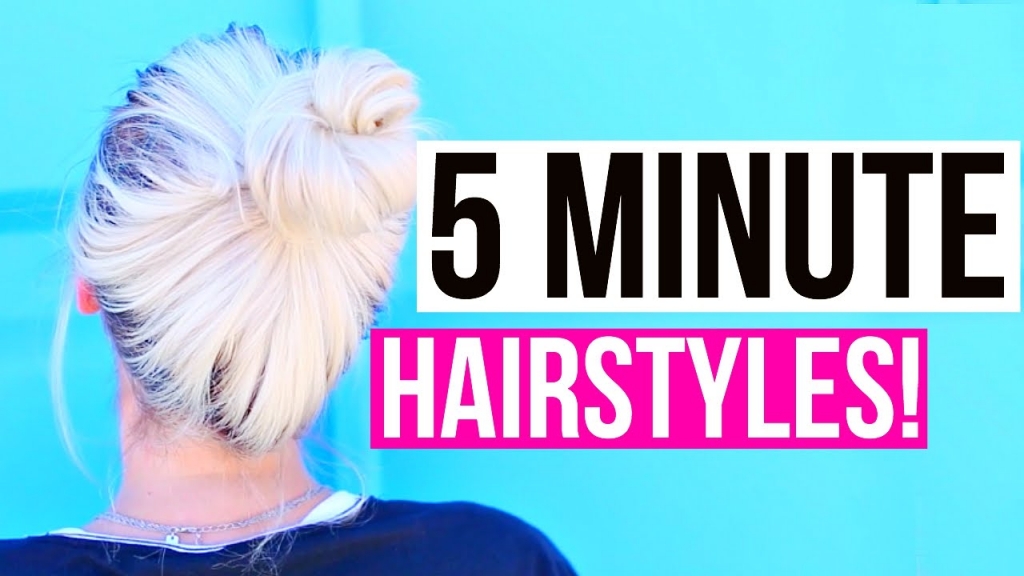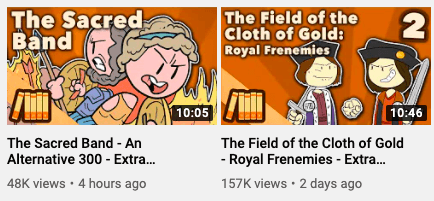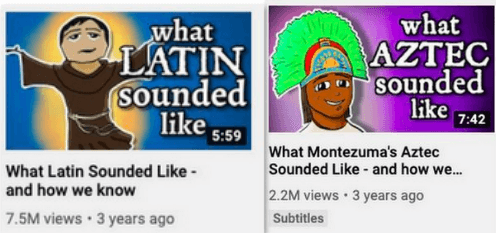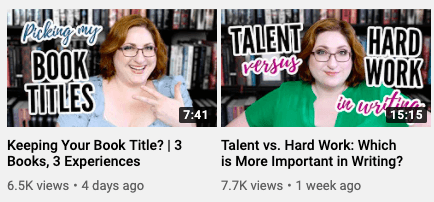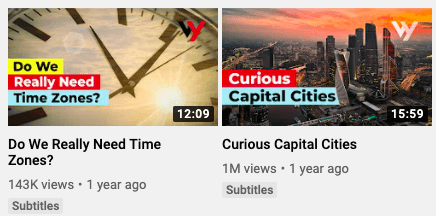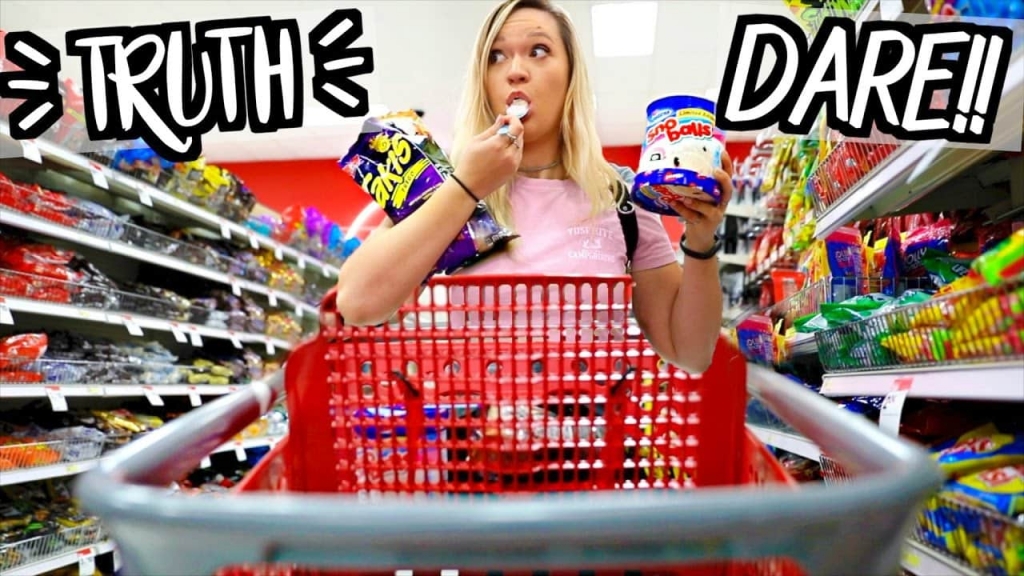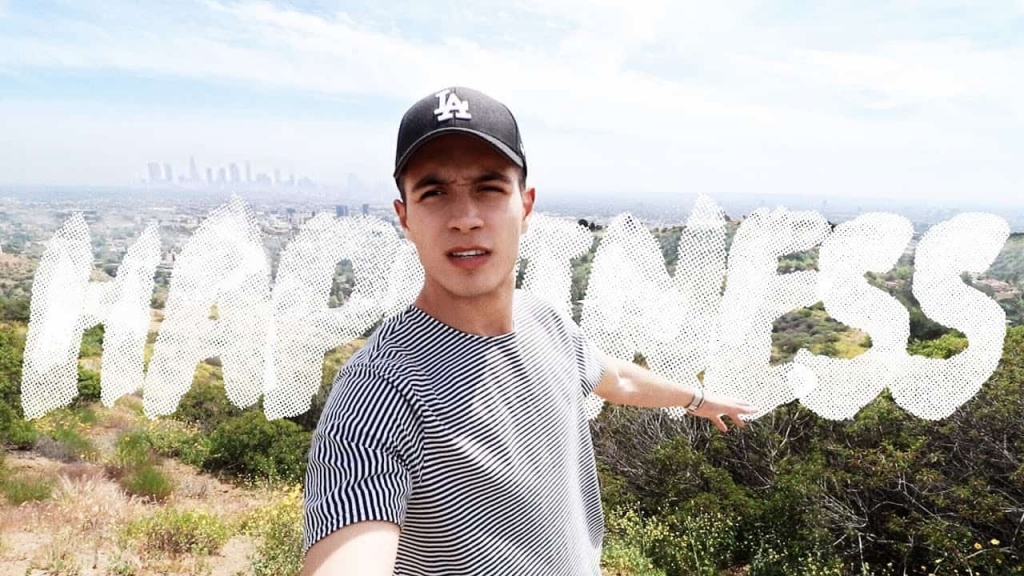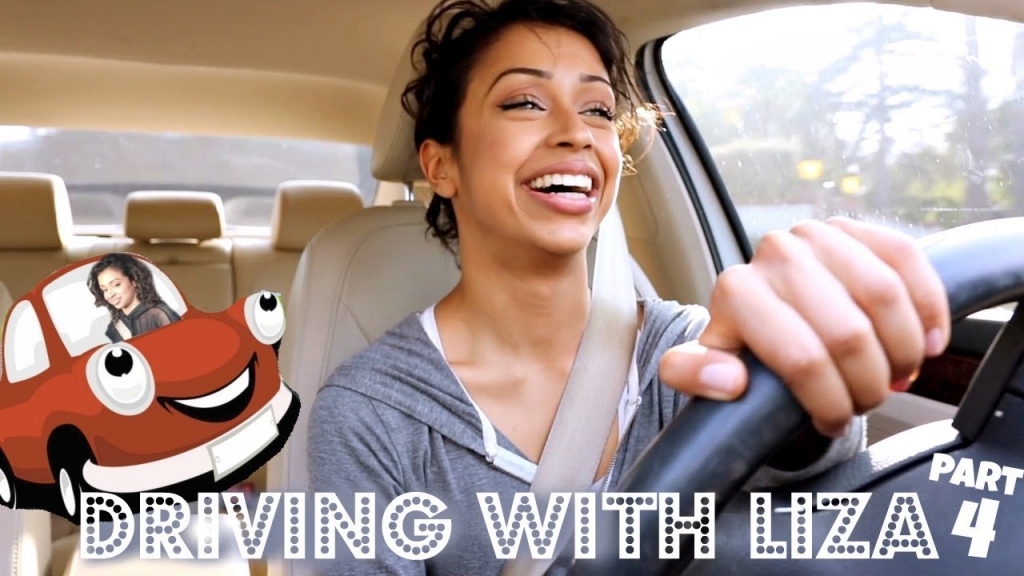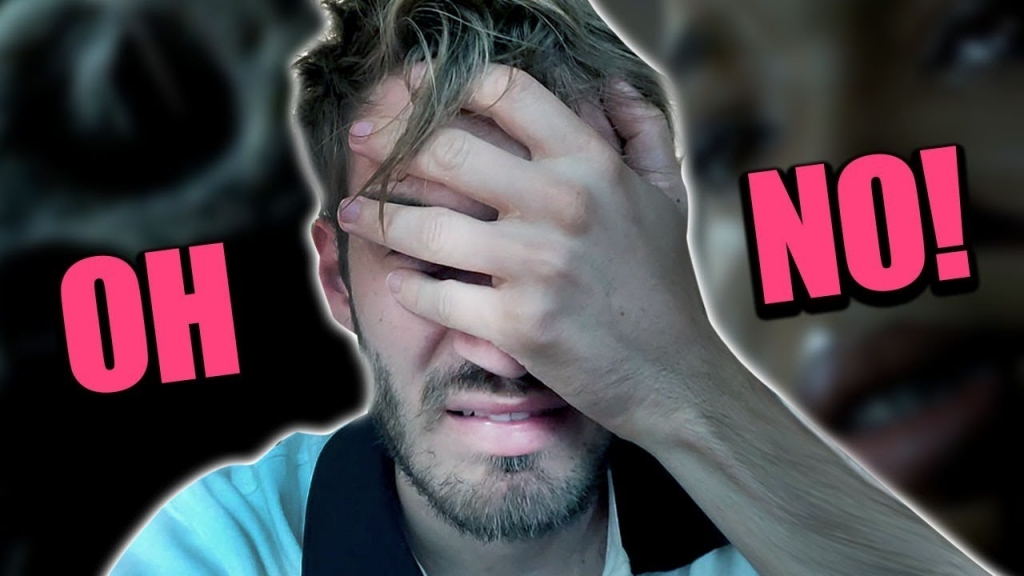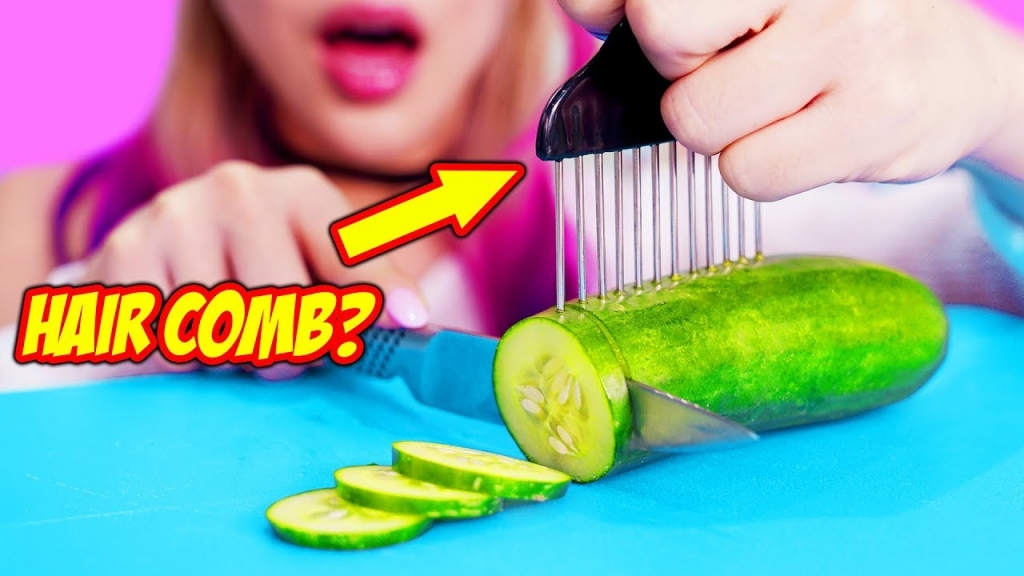
If you’ve been on YouTube for a while now, you would probably agree that creating YouTube content is never simple.
Being a content creator means that you are investing time, skills, and money into your video content, and you expect that people watch your work and grow your channel.
From deciding on the right topics to optimizing the videos, and making sure you’re addressing the right audience, creating content for YouTube is no easy thing.
Why Invest Time into Thumbnails?
A well designed YouTube thumbnail can drive more clicks and views to your channel and videos.
According to the YouTube Creator Academy, 90% of the videos that perform best on YouTube use a custom thumbnail.
Just think about your own behavior when using the platform.
Would you be more tempted to click on a video that has an engaging thumbnail and draws attention with a few words written on it?
According to the most recent video marketing statistics, there are more than 500 hours of video being uploaded on YouTube every minute, so just imagine how much content you’re competing with.
With all this in mind, why not use every resource you have to make sure that your videos stand out?
We looked more into this and put together a list of the best fonts for YouTube out there that can really help you boost those views, so check them out.
7 Best fonts for YouTube Thumbnails
1. Bebas Neue
This a very popular YouTube font logo, often used by many YouTubers in their videos, but also in their thumbnails.
Bebas Neue is a simple, yet elegant YouTube video font that works brilliantly for any type of content.
A fan of this font is YouTuber Aspyn Ovard, who made a habit out of using it almost always a few years back. The slender lettering looks excellent as a YouTube thumbnail font, as you can see in the following example:
2. Budmo
Is a simple font not hitting the sweet spot? Then go for Budmo, one of the coolest fonts YouTubers use, among which we also find Liza Koshy.
It’s a fun and quirky font, with its glitzy and bold lettering. Pair it with some subtle colors, and you’ve got yourself an eye-catching YouTube text font that is sure to impress.
3. Beauty and the Beast
Did anyone say “magical”? Well, here you go. A font perfect for all things fantastic. It’s bold, it’s interesting, and it sure has a lot of pizazz. Alisha Marie knows it and often uses it to caption her thumbnails.
Beauty and the Beast is one of the best fonts for YouTube because it stands out, but without being a centerpiece. Throw it on a very colorful background, and it will do its job as perfectly as when it’s used in association with more bland backgrounds.
4. Impact
A simple, bold font like Impact definitely gets the job done. This YouTube text font will work wonderfully on game review channels or even makeup channels as despite being simple, it is eye-grabbing, as well as very readable.
PewDiePie uses Impact on his video thumbnails, and we have to say, it does make for one of the most popular YouTube fonts as you might have noticed yourself. Many other YouTubers are fans of this typeface style.
5. River Drive
Used by Gabriel Conte on most of his YouTube videos, this typeface is different than what you might usually stumble upon. Its bold, but faded lettering looks fantastic on any video thumbnail.
River Drive would work great on a travel channel or a music one as it’s one of the best YouTube fonts out there. If your goal is to stand out, then this is your chance.
6. Badaboom BB
Now here’s a font that just screams “Attention!” even if you just read its name. Another example on the list of best YouTube thumbnail fonts is Badaboom BB, extensively used by Wengie on her channel, and it’s honestly such a great match of font and content.
Use it for quirky and fun content, and it’s guaranteed to make an impression.
7. Bernhard
Looking for elegant but funky fonts for YouTube thumbnails? We have the right one for you.
Bernhard is elegant while at the same time looking fresh and modern. It would work best for a book-related channel or a history-related one, so if that’s what you want, then it’s a match.
Zoella is among some of the YouTubers that use this font for their thumbnails, and you would probably agree that it does look absolutely fabulous.
Tips and Tricks for Sprucing up That YouTube Thumbnail
Every YouTube content creator needs a helping hand when it comes to hitting that refresh button, so here are a few tips that might help boost your thumbnail’s appeal:
1. Add color to your fonts
While it’s essential to choose a good-looking font, it is best to make sure you pick the appropriate colors as well, taking into consideration the type of content that you create.
Conclusion
Want to drive more clicks to your channel and videos? Then consider using a catchy font when creating your YouTube video thumbnails.
The colors and typeface you choose need to reflect what your channel is all about so get inspired and see what others are doing.